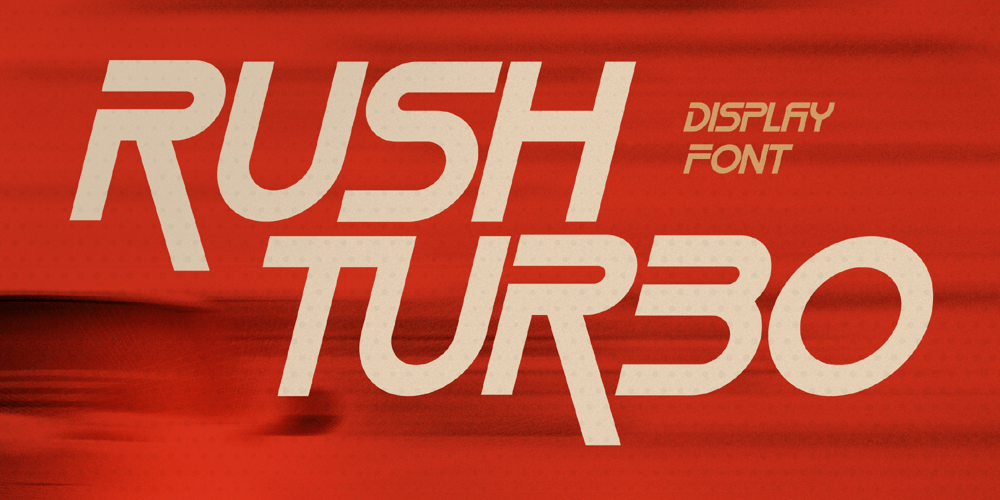
Rush Turbo Font Family was designed by Heru Utama Putra and published by Letterena Studios. Rush Turbo contains 2 styles and family package options. Rush Turbo is a cool and bold display font.This typeface is perfect for an elegant & luxurious logo, book or movie title design, fashion brand, magazine, clothes, lettering, quotes, and so much more. Rush Turbo is PUA encoded which means you can access all glyphs and swashes with ease!